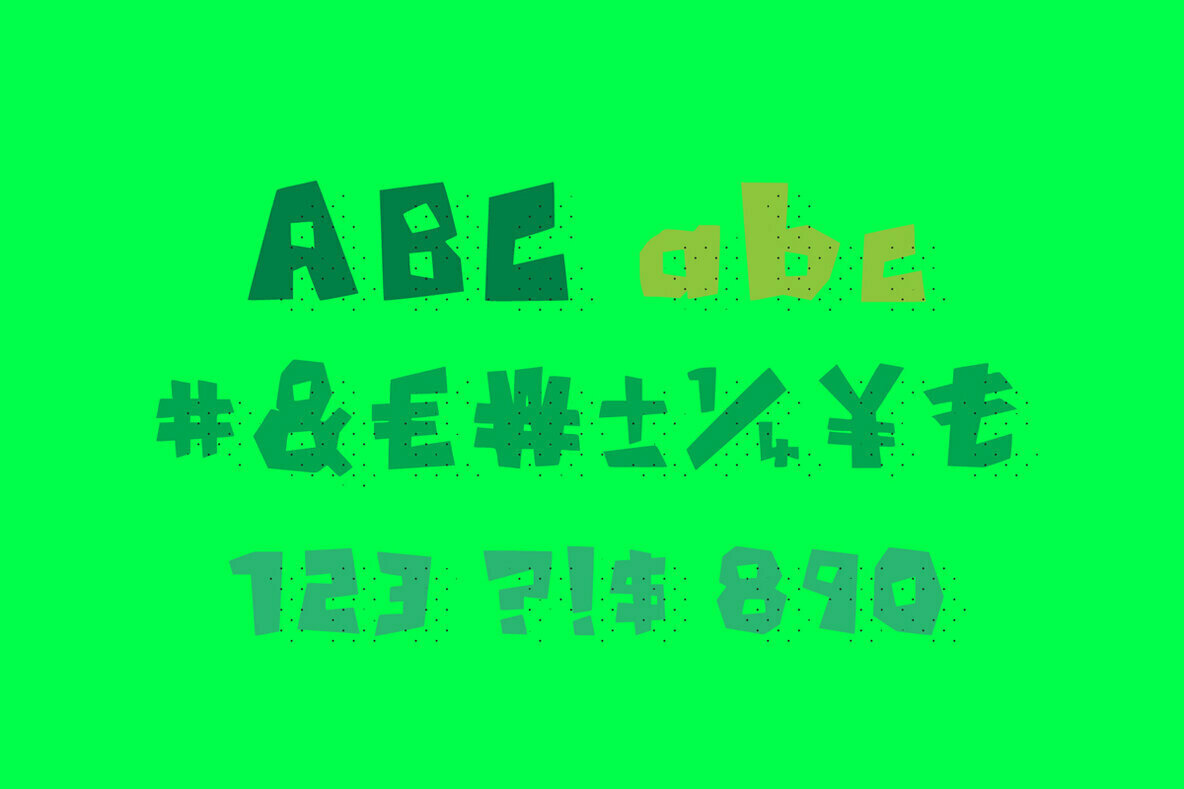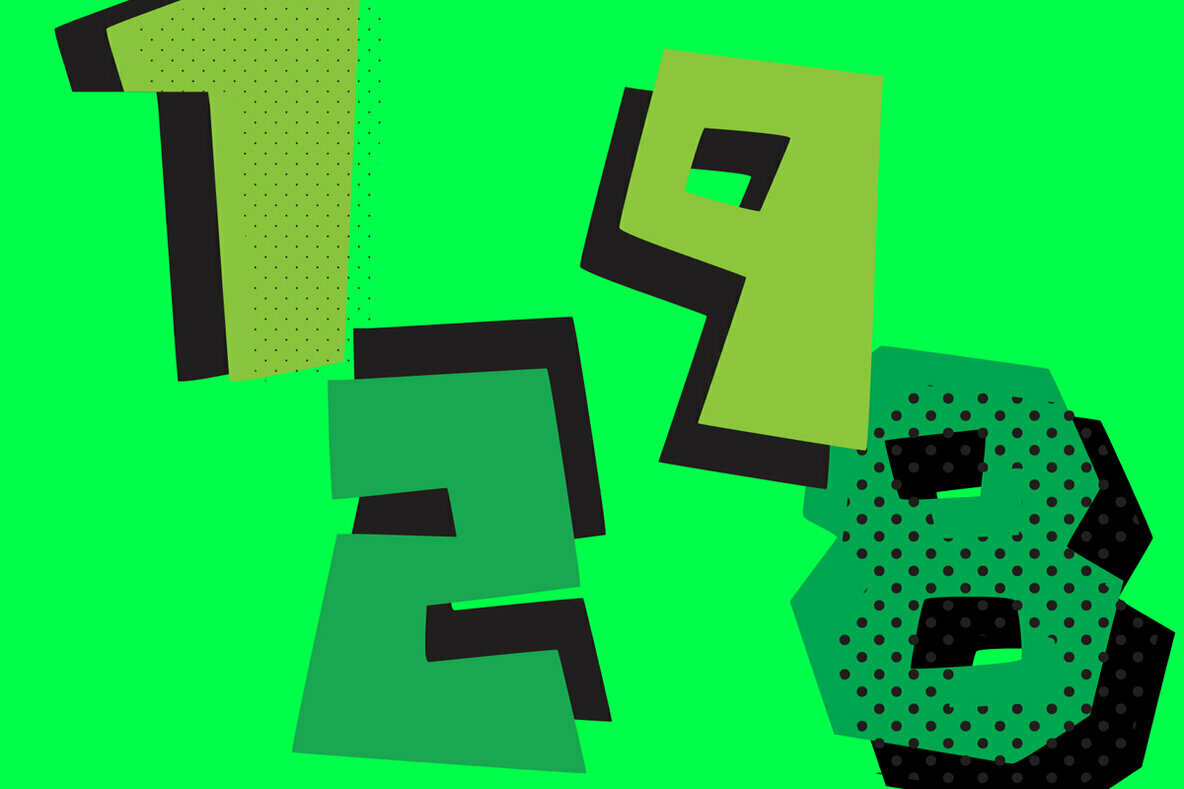
Monster Font
Monster Regular
Monster is a fantastically fun display font. Bold, brash and jarring elements make it great for a impactful and stand out choice for all your designs.